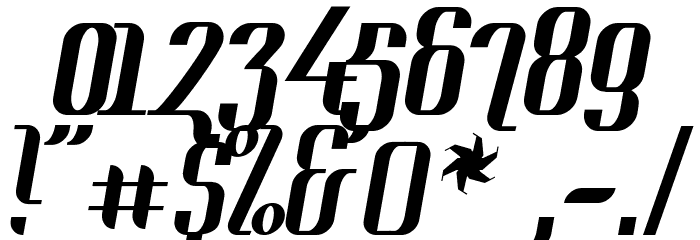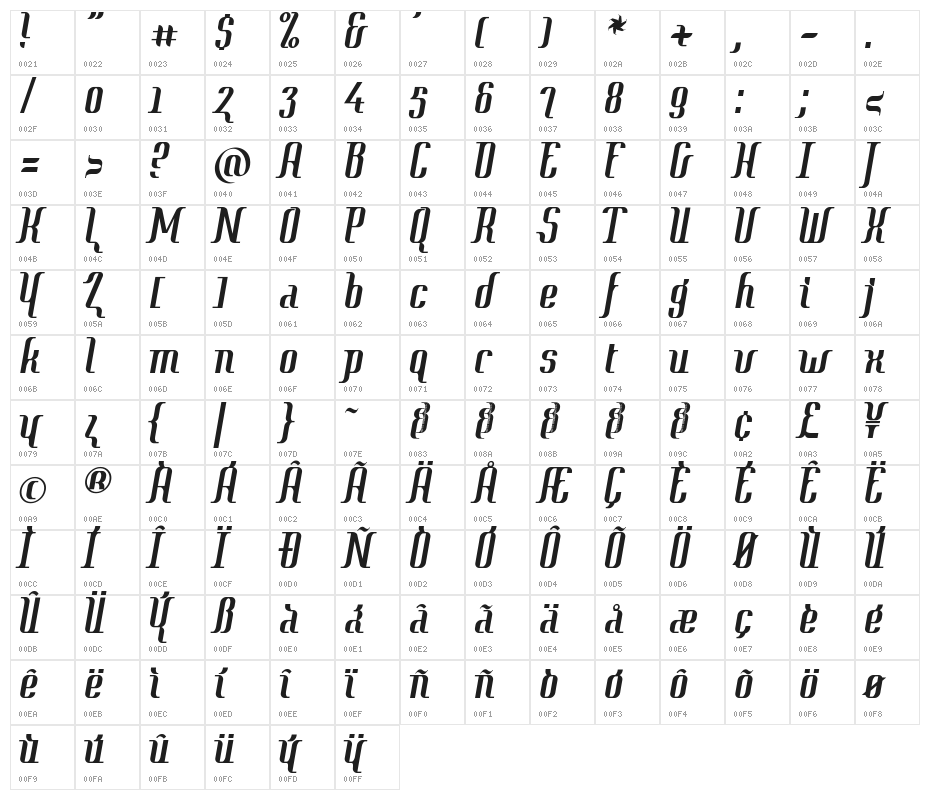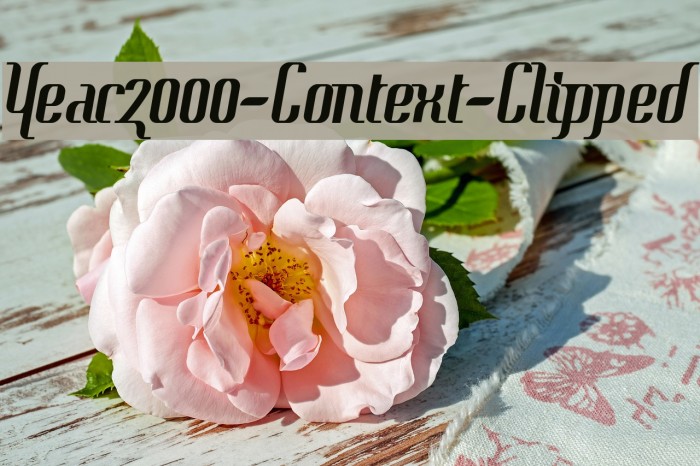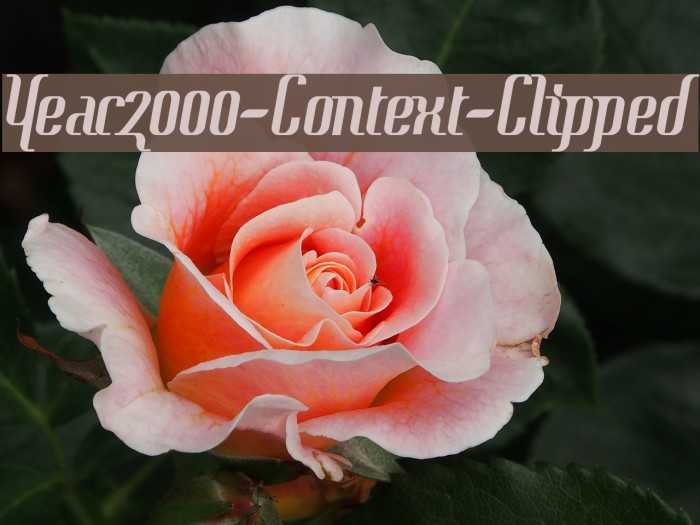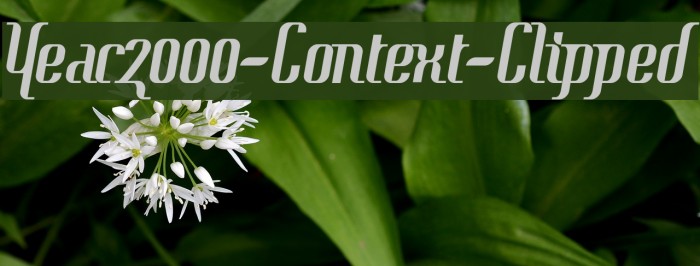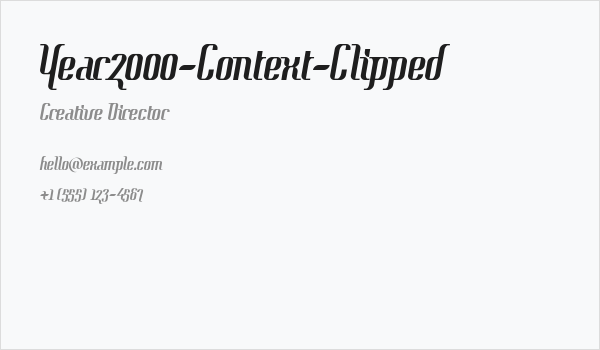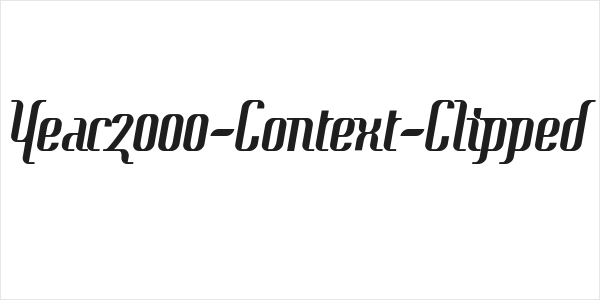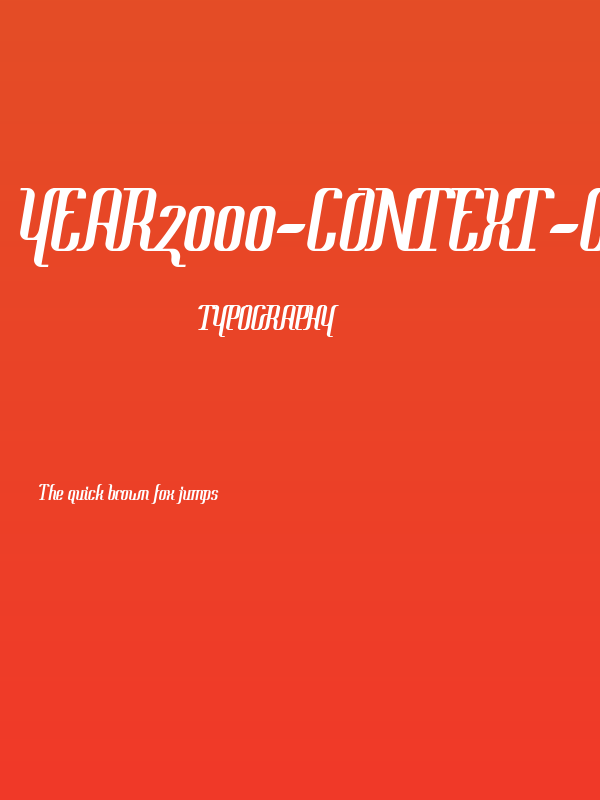
Year2000-Context-Clipped Font
Year2000-Context-Clipped Description
This font exhibits a bold and dynamic style with a strong slant, giving it a sense of movement and energy. The characters are elongated and feature sharp, angular serifs that add a touch of elegance and sophistication. The uppercase letters are tall and commanding, while the lowercase letters maintain a consistent flow with a slightly narrower form. The numerals are distinct and align well with the overall design, ensuring readability. Special characters are crafted with the same attention to detail, making them seamlessly integrate with the rest of the typeface. The font's high contrast in stroke thickness enhances its visual impact, making it suitable for attention-grabbing designs.
| Proposed Projects | Ideal for branding, posters, and headlines where a striking and energetic appearance is desired. |